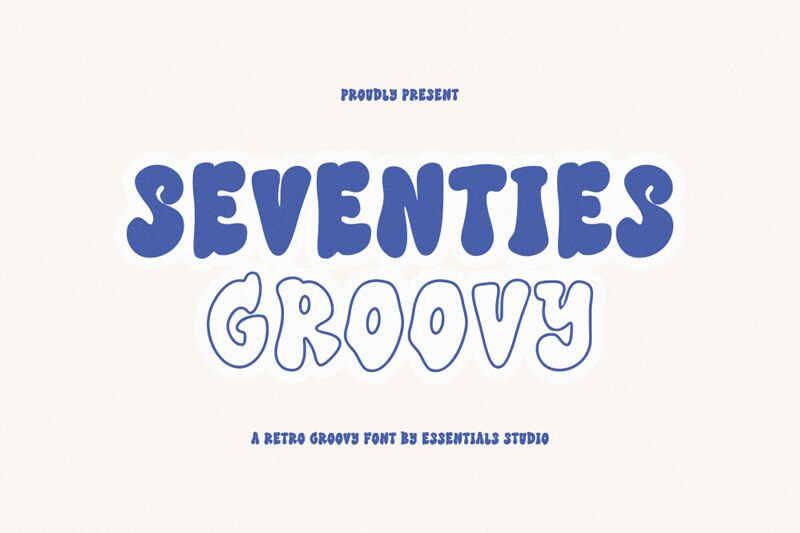
SEVENTIES GROOVY LINE
Seventies Groovy Line font by Essentials Studio is a free display font in a groovy style that features bold weights and flowing contours. This whimsical font includes an inherently retro theme with some 1970s inspiration, but it also feels bubbly and cheerful. Its letter design looks to have smooth and soft edges overall and pleasant curves throughout.
Use Seventies Groovy Line for posters, packaging, logotype design, music album covers, stickers, banners, invitations, apparel designs for clothes like t-shirts and hoodies, merchandise branding projects including mugs or cards among other things. Create amazing billboards or online ads using it as well!